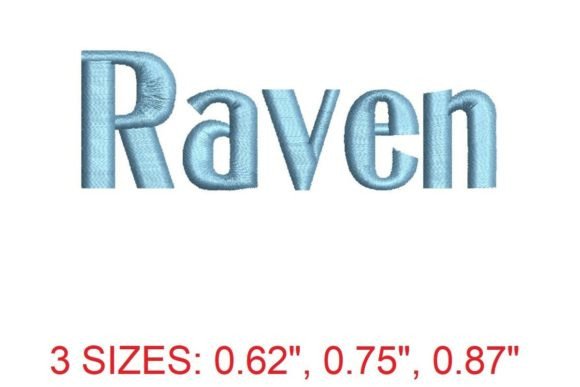
Raven Font: A Strategic Tool for Creative and Professional Expression
The Raven Font is more than just a design element—it’s a strategic asset that can elevate your embroidery projects, branding, and creative output. Whether you're a professional embroiderer or a passionate hobbyist, integrating the Raven Font into your workflow can unlock new levels of creativity and precision. Its dark, elegant aesthetic brings a unique visual language to your work, allowing you to communicate tone, mood, and intent with greater clarity.
Why Raven Font Matters in Embroidery and Beyond
The Raven Font is designed with both form and function in mind. It offers a clean, consistent structure that works well across multiple embroidery formats and machines. This versatility makes it an ideal choice for those looking to expand their creative toolkit. But its value extends beyond aesthetics. The font's structured design supports thoughtful planning and execution, helping you align your creative vision with practical outcomes.
For professionals, the Raven Font can streamline operations by providing a reliable, repeatable design that fits seamlessly into larger branding strategies. For hobbyists, it opens up new possibilities for personal expression and experimentation. By choosing the right font, you’re not just making a design decision—you’re shaping the message and experience of your work.
Strategic Use of Raven Font in Branding and Communication
In today’s competitive market, first impressions matter. The Raven Font can play a key role in creating a strong brand identity. Its bold, dark strokes convey confidence and sophistication, making it a great fit for businesses that want to project authority and elegance.
Consider how the Raven Font can be used in signage, packaging, and digital assets. Its legibility at various sizes ensures it remains effective even when scaled down. This adaptability is particularly useful for small business owners and entrepreneurs who need versatile tools that can be applied across multiple platforms.
When designing for customer experience, the Raven Font can help reinforce brand consistency. Whether it’s on a product label or a website header, using the same font across all touchpoints builds recognition and trust. This strategic alignment is crucial for long-term success in any industry.
Planning and Execution: How to Approach Raven Font Effectively
Before incorporating the Raven Font into your projects, take time to plan how it will fit into your overall strategy. Start by defining your goals—what do you hope to achieve by using this font? Is it to enhance readability, create a specific mood, or align with a particular brand image?
Once you have a clear purpose, consider the context in which the font will be used. Will it be part of a larger design system? How does it interact with other elements like color, layout, and typography? These questions help ensure that the Raven Font is used intentionally rather than randomly.
It’s also important to test the font in different environments. Try using it on various materials and surfaces to see how it performs. This step helps identify any potential issues and allows you to make adjustments before finalizing your design.
Practical Examples and Real-World Applications
Let’s look at a few real-world examples where the Raven Font has made a meaningful impact. One entrepreneur used it to create a custom logo for her boutique, instantly elevating the brand’s visual appeal. Another designer incorporated the font into a series of embroidered greeting cards, adding a touch of sophistication that resonated with customers.
For educators and content creators, the Raven Font can be a valuable tool for developing educational materials. Its clear structure makes it easy to read, while its unique style adds a creative edge. This combination is especially useful for publishing content that needs to be both informative and visually engaging.
Freelancers and small business owners can benefit from the font’s versatility. It can be used across multiple projects, from product labels to promotional materials, ensuring a cohesive look that strengthens brand identity and customer engagement.
What to Consider Before Relying on Raven Font
While the Raven Font offers many benefits, it’s important to use it wisely. Without clear goals or context, it can become a distraction rather than a tool. Always ask yourself: Does this font support my message? Does it align with my brand? Does it enhance the user experience?
Additionally, consider the technical aspects of using the font. Ensure that your embroidery machine is compatible with the file formats provided. Also, check that the font scales well across different sizes and applications. These considerations help avoid common pitfalls and ensure a smooth implementation process.
Finally, remember that no single tool is a silver bullet. The Raven Font is most effective when used as part of a broader strategy. Combine it with other design elements and techniques to create a comprehensive approach that delivers real results.
Ultimately, the Raven Font is a powerful tool that can enhance your work in meaningful ways. When used strategically, it can help you achieve better results, improve your creative output, and strengthen your brand. By approaching it with intention and care, you’ll unlock its full potential and create lasting impact.